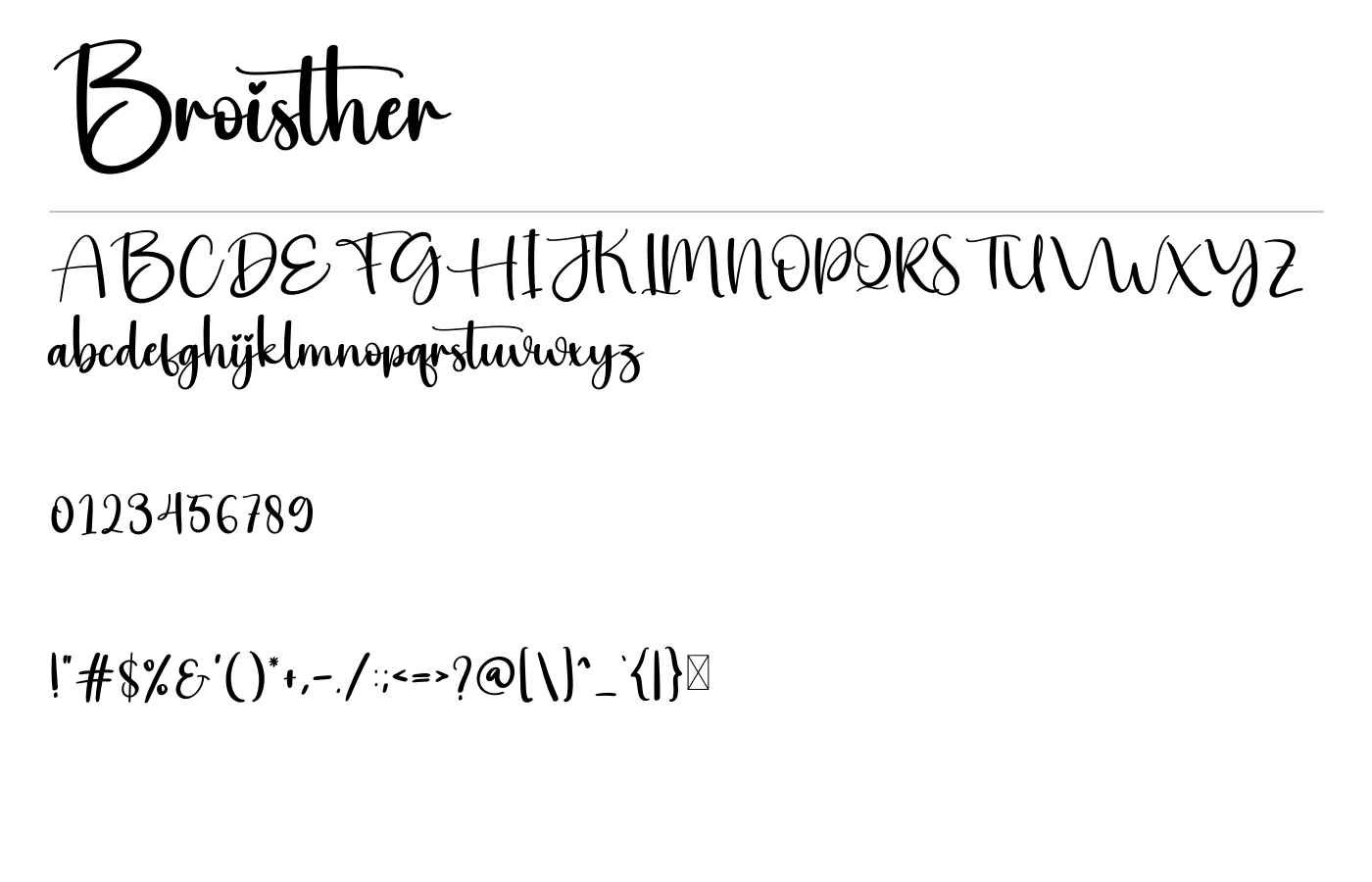
Broisther is a playful and elegant handwritten script font featuring tall, slender letterforms with smooth, flowing lines and charming heart-shaped dots. Its light to regular weight and airy spacing make it perfect for creative branding, invitations, and casual headlines where a friendly and whimsical touch is desired. This font's stylish yet approachable personality works well in fashion, lifestyle, and personal projects that aim to convey warmth and personality.
Broisther Font
About Broisther Font